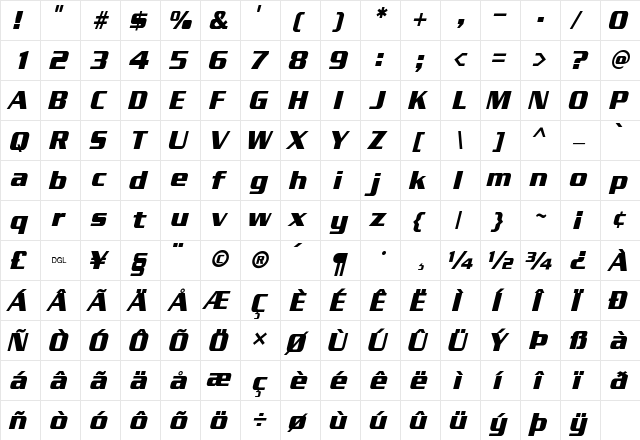
Enter Sansman Italic
Design Context for Enter Sansman Typeface
Enter Sansman takes a measured approach to typography — its balanced proportions and neutral character make it a reliable workhorse for both digital and print work. The dynamic lean of this cut emphasises speed and emphasis in any layout.
Pro Tip: Try Enter Sansman for annotation and caption copy alongside an upright companion — the contrast in angle creates a dynamic but ordered typographic system.